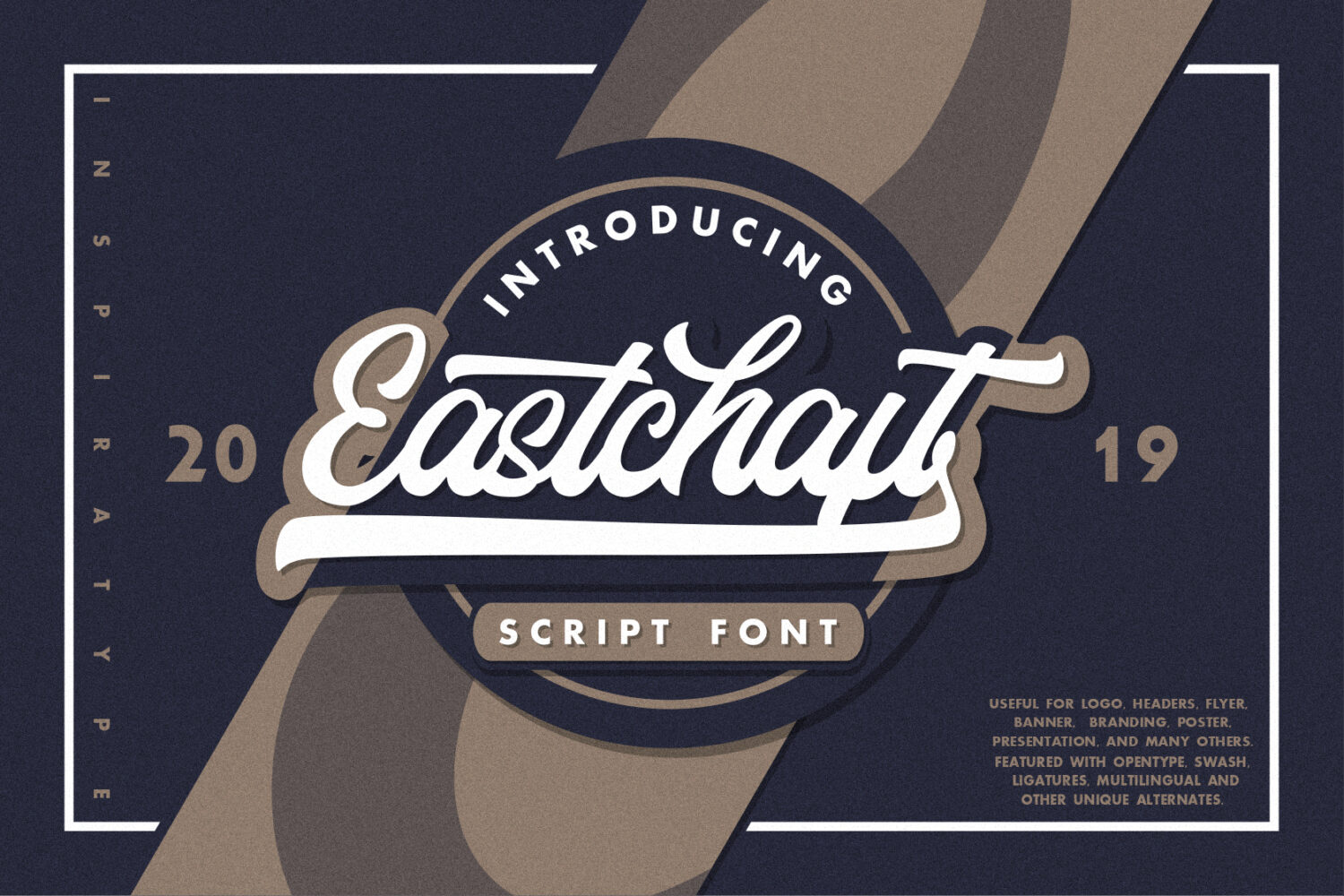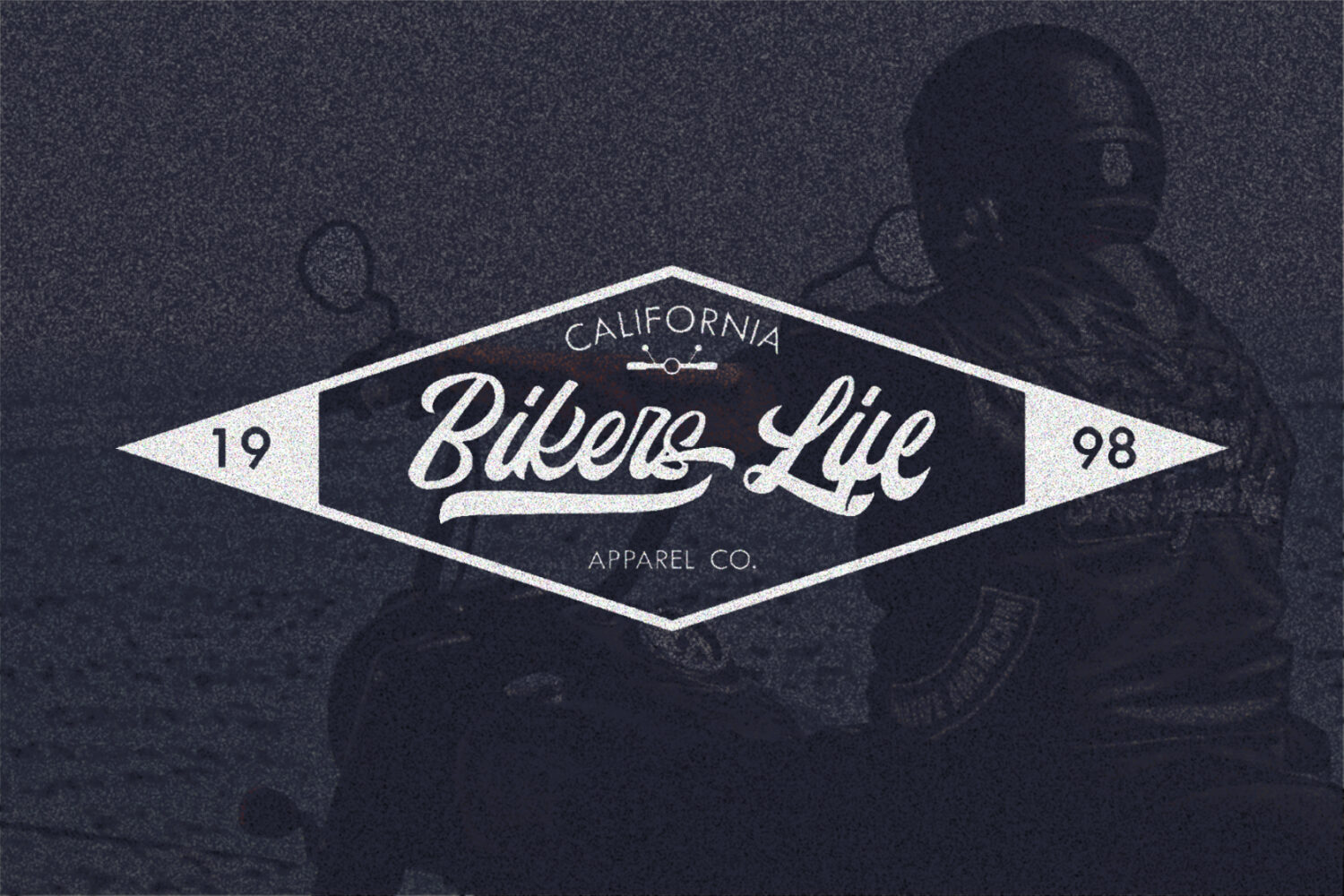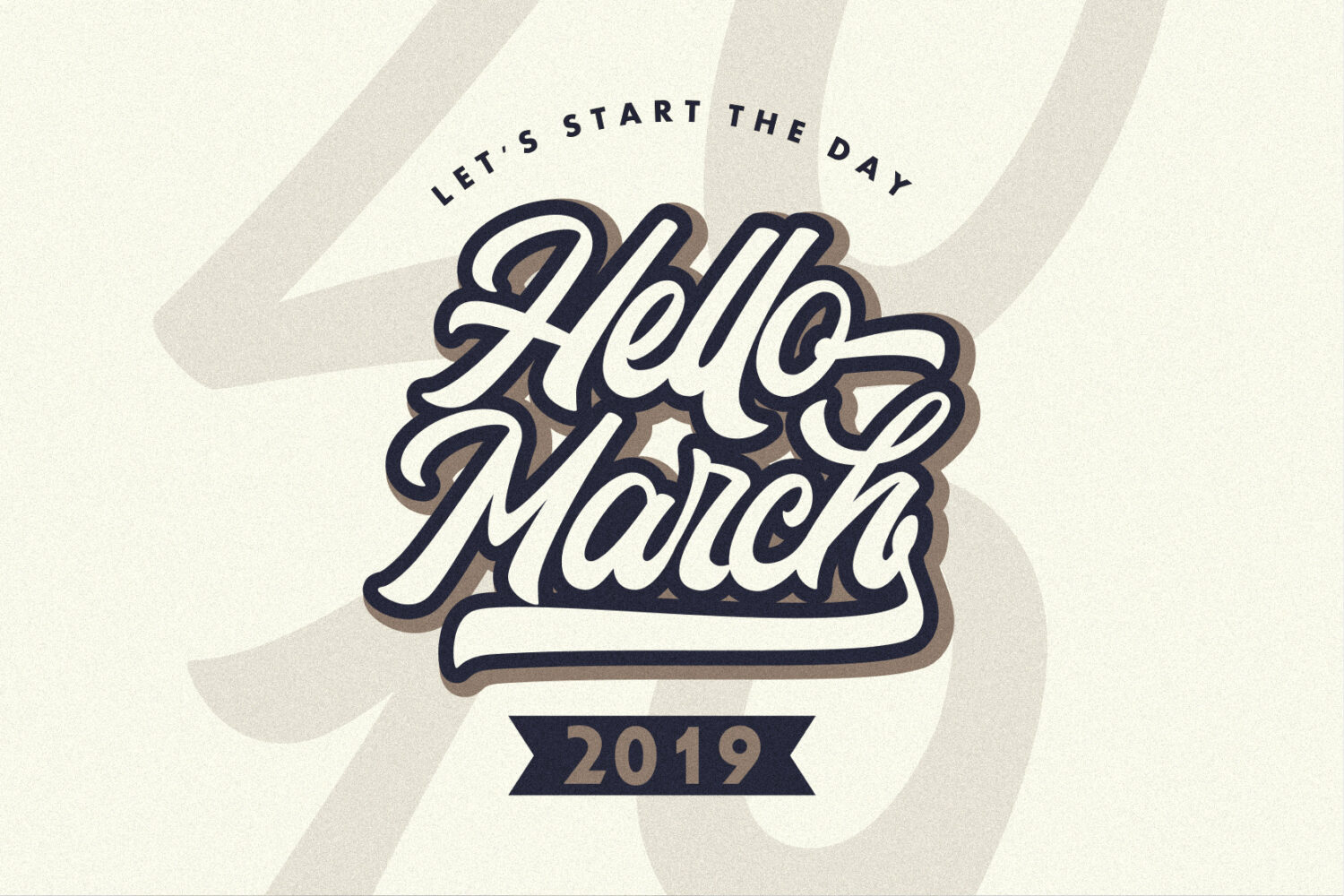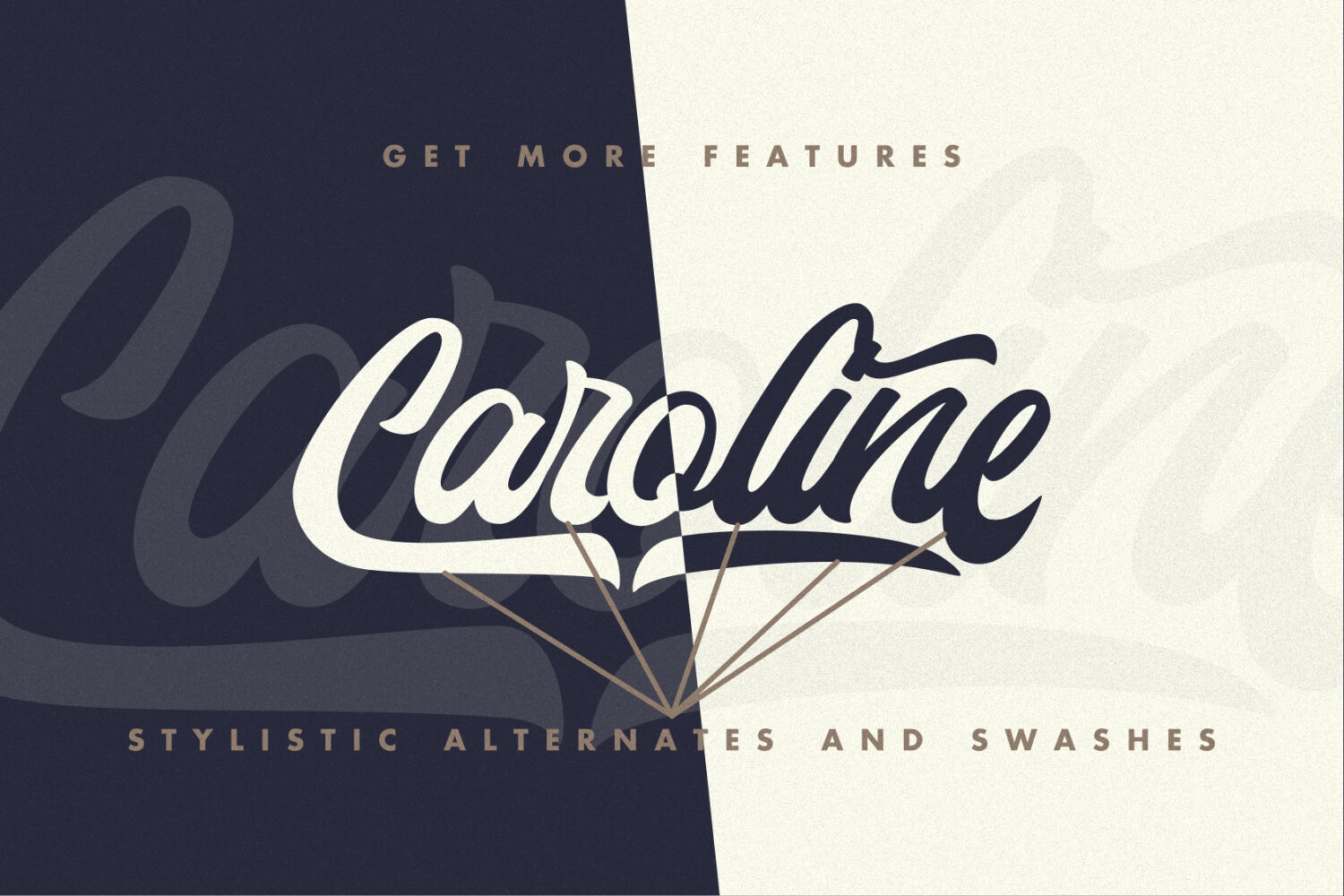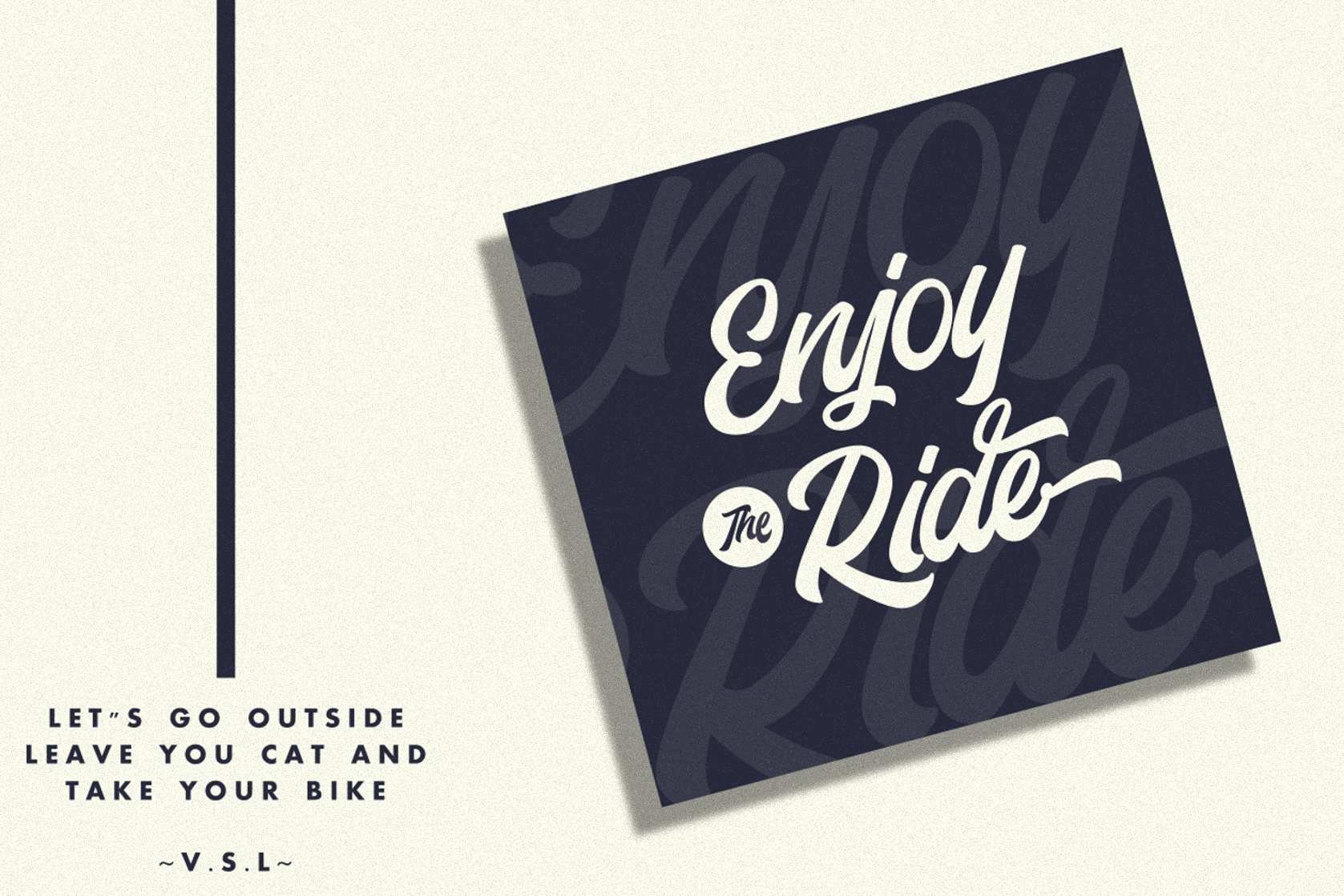
Eastchaft Free Font
Eastchaft Free Font is a font display is made by hand, inspired by classic posters. Comes with uppercase, lowercase, numerals, punctuations and so many variations on each character include OpenType alternates, common ligatures, and also additional swash to let you customize your designs. Perfect to use for Logotype, Letterhead, Poster, Apparel Design, Label and etc. This free typeface was designed by a talented Inspiratype Studio. If you like it don’t forget to check out the full version.